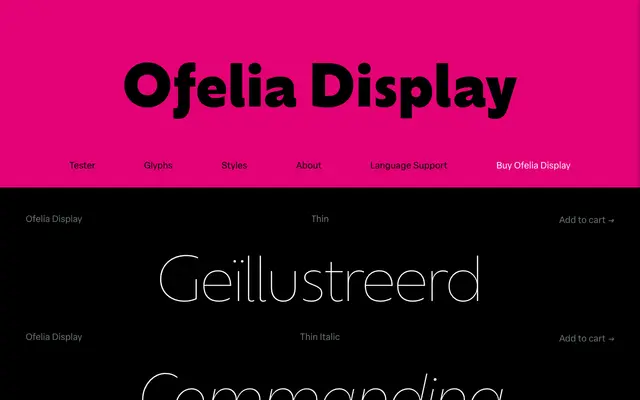
Ofelia Display
Blackletra · Daniel Sabino · 2016
A geometric sans-serif optimised for display use, balancing a rigid underlying structure with gestural details on select letterforms.
Designed by Daniel Sabino and released in 2016, Ofelia Display is the larger optical size of a two-part family that also includes Ofelia Text. Fourteen styles span seven weights from Thin to Extrabold with matching italics, and the fonts include small caps, old-style and tabular figures, and alternates for /a and /l. The gestural quality of characters like /a, /f and the comma prevents the geometric framework from feeling cold or mechanical.
Described by the foundry as a geometric sans-serif; its rigid geometric structure is softened by gestural letterforms on characters such as /a, /f and the comma.